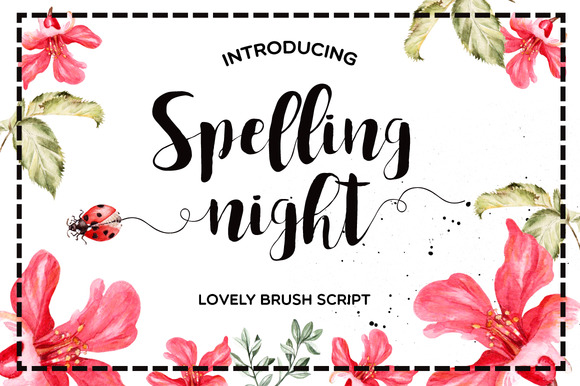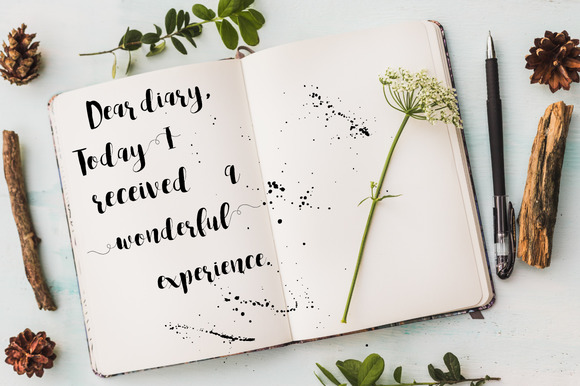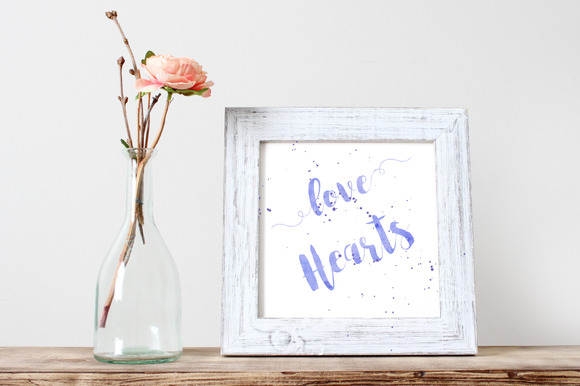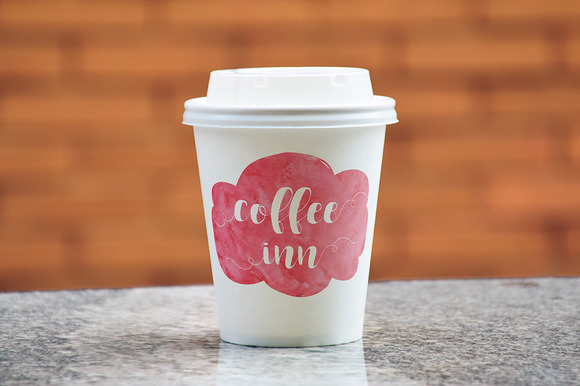
HomeScript FontsSpelling Night Font Script Fonts Spelling Night Font FacebookXPinterestWhatsApp Spelling Night Font Poster 2 Spelling Night Font Poster 3 Spelling Night Font Poster 4 About Spelling Night Font Spelling night is a lovely romantic brush script with ligatures, alternative endings, and initials. DOWNLOAD ON CREATIVE FABRICAThis font is sold and delivered by Creative Fabrica. Font Canyon may earn a commission if you buy through this link. People also explored Colerone Font The Unicorn Monogram Font Papaya Sunrise Font Holy Love Font Bundle Risotto Font Himalaya Font Houston Font Fleolyn Font Rose Monogram Font 329 0 TagsSpelling Night Font Previous articleStarina FontNext articleSmitten Font LEAVE A REPLY Cancel reply Comment: Please enter your comment! Name:* Please enter your name here Email:* You have entered an incorrect email address! Please enter your email address here Website: Save my name, email, and website in this browser for the next time I comment. Personal Use Free Broodfath Personal Use Free Read more about this font Axaxax Bold Personal Use Free Read more about this font Crayones Personal Use Free Read more about this font Still Time Personal Use Free Read more about this font BLOG Top 7 Google Fonts Alternatives for Faster and Privacy-Friendly Web Design (2025) Top 7 Google Fonts Alternatives for Faster and Privacy-Friendly Web Design (2025) When it comes to web typography, Google Fonts has long been the go-to... 5 Fonts That Will Dominate Design Trends in 2026 Free Fonts Risk: Why Free Fonts Can Be Dangerous for Designers How to Install and Use Fonts on Windows, macOS, and Web Projects